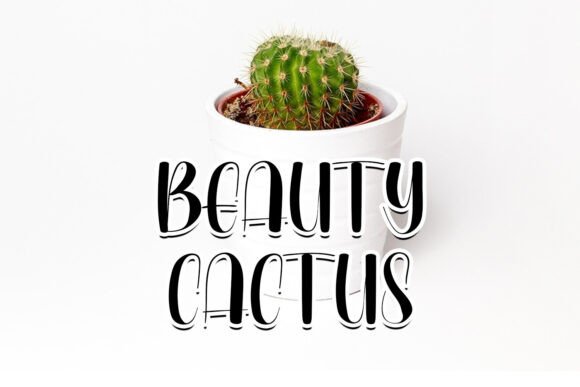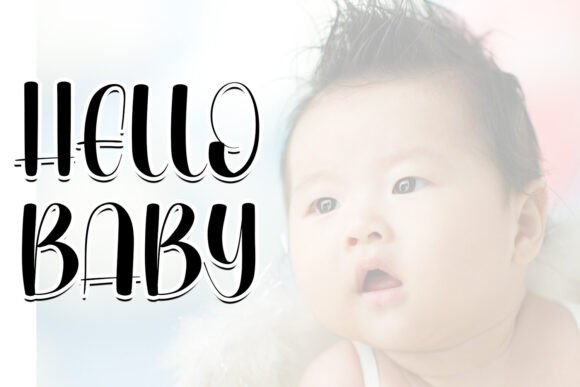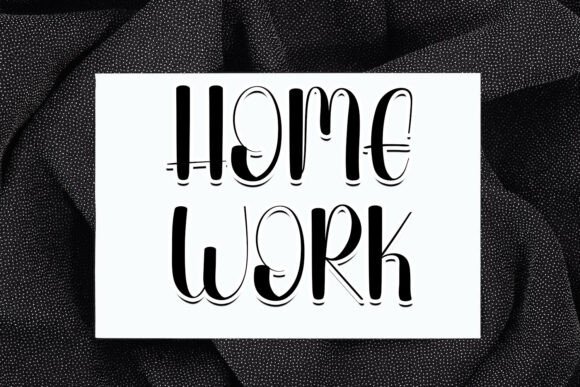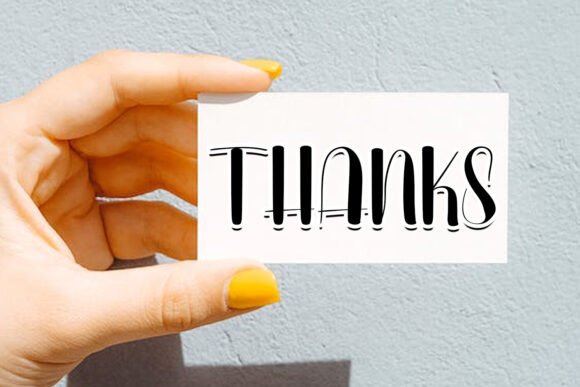
Introducing Christmas Dancing Font: Elevate Your Designs with Elegance and Whimsy
Are you tired of using the same old fonts for your designs? Look no further! We’re thrilled to introduce “Christmas Dancing,” a vibrant and elegant font that’s sure to transform your design vision into reality. With its refreshing style, this font is perfect for a wide range of applications, from YouTube banners and wedding invitations to professional ID cards and sleek cover logo mockups.
A Font that Dances with Versatility
Christmas Dancing is more than just a font – it’s a statement of style and sophistication. Its dynamic and whimsical design makes it perfect for designers and crafters who want to add a touch of magic to their creations. Whether you’re working on a festive holiday project or a sleek business design, this font is sure to inspire.
With Christmas Dancing, the design possibilities are endless. Here are just a few ideas to get you started:
- YouTube Banners: Create eye-catching banners that showcase your channel’s personality and style.
- Wedding Invitations: Make your wedding invitations truly special with a font that’s both elegant and playful.
- Professional ID Cards: Add a touch of sophistication to your ID cards with a font that’s both modern and refined.
- Cover Logo Mockups: Create stunning cover logo mockups that showcase your brand’s personality and style.
- Flyers and Crafts: Add a touch of whimsy to your flyers and crafts with a font that’s both fun and festive.
Why Choose Christmas Dancing Font?
So why choose Christmas Dancing font for your design projects? Here are just a few reasons:
- Unique and Eye-catching: Christmas Dancing is a one-of-a-kind font that’s sure to grab attention and make your designs stand out.
- Simple yet Elegant: With its simple yet elegant design, this font is perfect for a wide range of applications, from business designs to festive holiday projects.
- Boosts Business Presence: By using Christmas Dancing font, you can add a touch of sophistication and style to your business designs, helping to boost your brand’s presence and growth.
In conclusion, Christmas Dancing font is a vibrant and elegant font that’s perfect for designers and crafters who want to add a touch of magic to their creations. With its refreshing style and endless design possibilities, this font is sure to inspire and elevate your designs. Whether you’re working on a festive holiday project or a sleek business design, Christmas Dancing is the perfect choice. So why wait? Download Christmas Dancing font today and start transforming your design vision into reality!